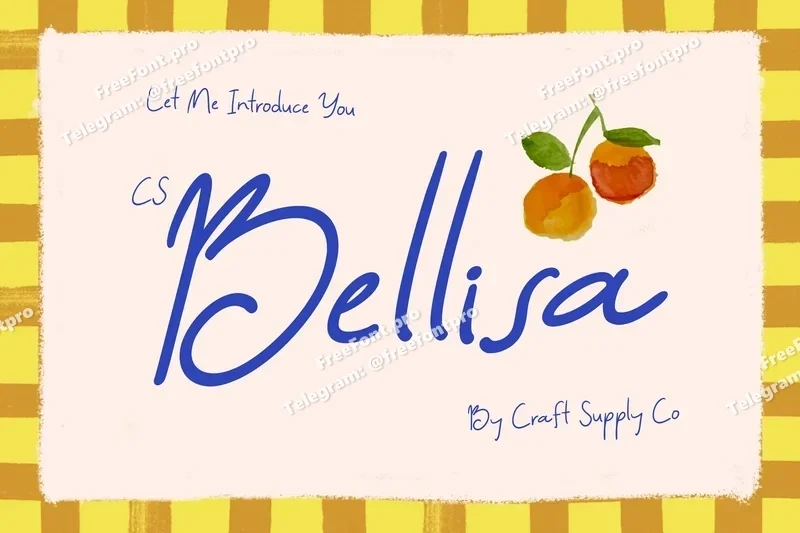
Bellisa – Friendly Handwritten Font
CS Bellisa: Casual Charm with a Personal Touch
Expressive Handwritten Font for Friendly Designs This is a friendly handwritten font that combines sans serif expressiveness with effortless charm. Each stroke carries a natural flow, giving your text a warm and approachable personality. Designed to look genuine and human, adds life and emotion to every word, making it perfect for projects that value connection and creativity.
Handcrafted Style for Authentic Expression Every curve and line in this font reflects the beauty of true handwriting. Its organic form and subtle imperfections bring a sense of authenticity and individuality to your designs. Whether used for quotes, branding, or social media graphics, this font captures attention through its relatable and human quality.
Casual Feel for Modern Versatility With its relaxed, free-flowing structure, blends professionalism with playfulness. It adapts effortlessly across design styles from fun editorial layouts to creative advertising adding a touch of warmth without sacrificing clarity. Its casual tone makes it suitable for both modern and informal projects that need a friendly voice.
Perfect for Branding and Creative Projects This font shines in branding, posters, packaging, and digital content where personality and approachability matter. Its expressive charm turns simple words into engaging visuals, helping brands connect with audiences in a personal and memorable way. With this font, every design feels inviting, confident, and full of character.